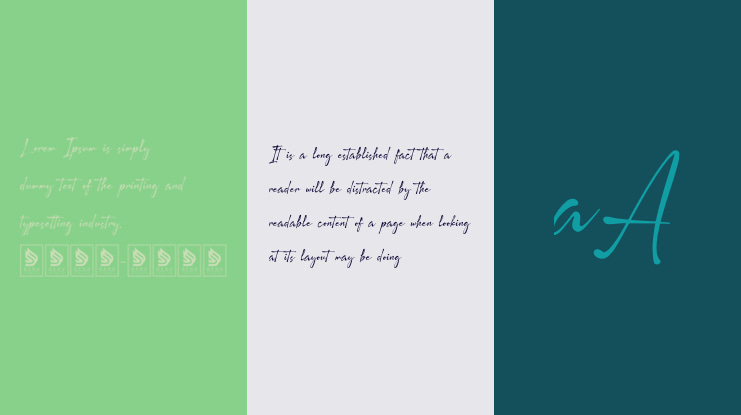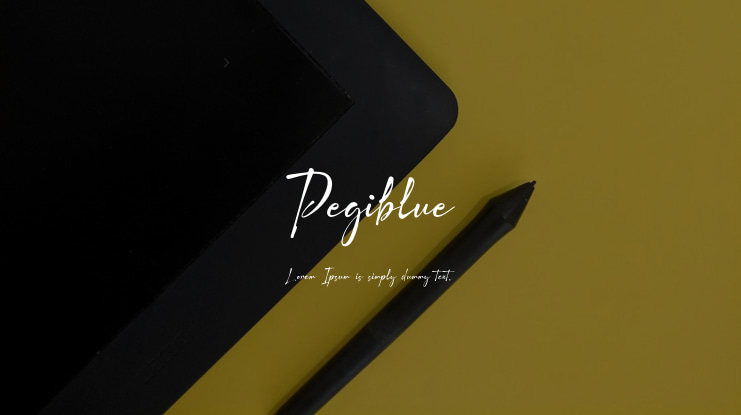
Pegiblue Font
Pegiblue | Classic Signature Font is suitable for any projects such as: logos, branding projects, homeware designs, product packaging, mugs, quotes, posters, shopping bags, t-shirts, book covers, name card, invitation cards, greeting cards, label, photography, watermark, special events, and all your other lovely projects that need a Classic Signature Font taste.